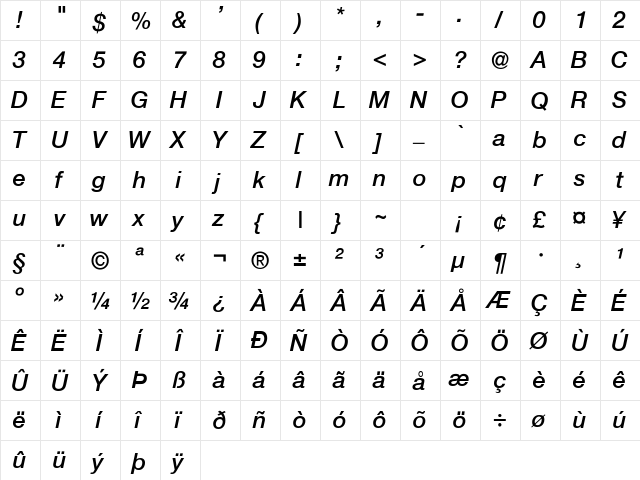
Helvetica-MediumItalic Regular
Design Context for Helvetica-MediumItalic Typeface
Helvetica-MediumItalic is a composed and adaptable typeface that performs quietly and consistently across a wide range of design contexts. The slanted form adds forward momentum and visual energy.
Pro Tip: Try Helvetica-MediumItalic for annotation and caption copy alongside an upright companion — the contrast in angle creates a dynamic but ordered typographic system.